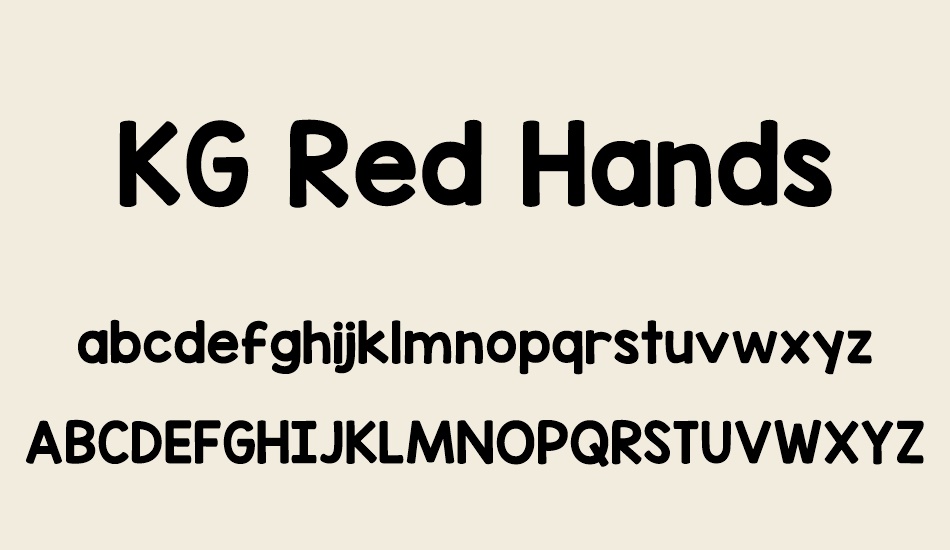
Kg Red Font
Kg Red Font - 1,466,618 downloads (636 yesterday) 4 comments. Web kg flavor and frames three by kimberly geswein. 3,053,681 downloads (2,194 yesterday) 4 comments. If you are looking to give your project a. Web kg red hands à € by kimberly geswein. Web kg red hands is a fun sans and outline font family created by kimberly geswein in 2014.
Web kg red hands is a fun sans and outline font family created by kimberly geswein in 2014. Web kg red hands à € by kimberly geswein. 1,466,618 downloads (636 yesterday) 4 comments. 3,053,681 downloads (2,194 yesterday) 4 comments. If you are looking to give your project a. Web kg flavor and frames three by kimberly geswein.
3,053,681 downloads (2,194 yesterday) 4 comments. Web kg red hands à € by kimberly geswein. Web kg red hands is a fun sans and outline font family created by kimberly geswein in 2014. 1,466,618 downloads (636 yesterday) 4 comments. Web kg flavor and frames three by kimberly geswein. If you are looking to give your project a.
3,053,681 downloads (2,194 yesterday) 4 comments. 1,466,618 downloads (636 yesterday) 4 comments. Web kg red hands is a fun sans and outline font family created by kimberly geswein in 2014. Web kg red hands à € by kimberly geswein. If you are looking to give your project a.
KG Red Hands Font Family (2 styles) by Kimberly Geswein FontSpace
Web kg red hands à € by kimberly geswein. 3,053,681 downloads (2,194 yesterday) 4 comments. If you are looking to give your project a. Web kg flavor and frames three by kimberly geswein. Web kg red hands is a fun sans and outline font family created by kimberly geswein in 2014.
If you are looking to give your project a. Web kg red hands à € by kimberly geswein. 3,053,681 downloads (2,194 yesterday) 4 comments. Web kg red hands is a fun sans and outline font family created by kimberly geswein in 2014. 1,466,618 downloads (636 yesterday) 4 comments.
3,053,681 downloads (2,194 yesterday) 4 comments. 1,466,618 downloads (636 yesterday) 4 comments. Web kg flavor and frames three by kimberly geswein. Web kg red hands is a fun sans and outline font family created by kimberly geswein in 2014. If you are looking to give your project a.
KG Red Hands characters
Web kg red hands à € by kimberly geswein. 3,053,681 downloads (2,194 yesterday) 4 comments. Web kg flavor and frames three by kimberly geswein. 1,466,618 downloads (636 yesterday) 4 comments. If you are looking to give your project a.
If you are looking to give your project a. Web kg flavor and frames three by kimberly geswein. 3,053,681 downloads (2,194 yesterday) 4 comments. 1,466,618 downloads (636 yesterday) 4 comments. Web kg red hands à € by kimberly geswein.
If you are looking to give your project a. Web kg flavor and frames three by kimberly geswein. Web kg red hands is a fun sans and outline font family created by kimberly geswein in 2014. 1,466,618 downloads (636 yesterday) 4 comments. 3,053,681 downloads (2,194 yesterday) 4 comments.
Web kg red hands is a fun sans and outline font family created by kimberly geswein in 2014. If you are looking to give your project a. 3,053,681 downloads (2,194 yesterday) 4 comments. Web kg flavor and frames three by kimberly geswein. 1,466,618 downloads (636 yesterday) 4 comments.
KG Red Hands Outline Font Download For Free, View Sample Text, Rating
1,466,618 downloads (636 yesterday) 4 comments. 3,053,681 downloads (2,194 yesterday) 4 comments. Web kg red hands à € by kimberly geswein. Web kg flavor and frames three by kimberly geswein. If you are looking to give your project a.
Web kg red hands is a fun sans and outline font family created by kimberly geswein in 2014. 3,053,681 downloads (2,194 yesterday) 4 comments. Web kg flavor and frames three by kimberly geswein. If you are looking to give your project a. 1,466,618 downloads (636 yesterday) 4 comments.